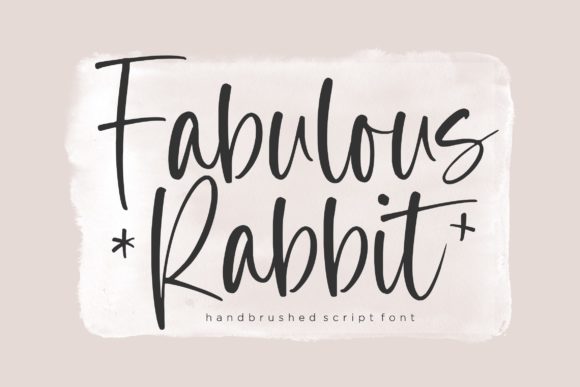
Introducing the Fabulous Rabbit Handbrushed Script Font, the perfect choice for those seeking the best font for a modern logo. Created by the talented Balpirick, this font is guaranteed to elevate your designs and captivate your audience.
With its cute and slim handwritten style, Fabulous Rabbit adds a touch of charm and personality to any project. Whether you're designing a logo, branding materials, or even social media graphics, this font will bring a unique and eye-catching element to your creations.
What sets Fabulous Rabbit apart is its versatility and potential to enhance any creation. Its handbrushed script style adds a playful and artistic vibe, making it a wonderful asset for designers of all levels. Plus, with the inclusion of both OTF and TTF formats, you have the flexibility to use this font in various design software.
But that's not all! Fabulous Rabbit also offers multilingual support, allowing you to reach a global audience with ease. No matter the language or target market, this font ensures that your message is conveyed flawlessly.
Imagine the impact of a modern logo created with Fabulous Rabbit. It will effortlessly catch the attention of your target audience, leaving a lasting impression and creating a sense of trust and professionalism.